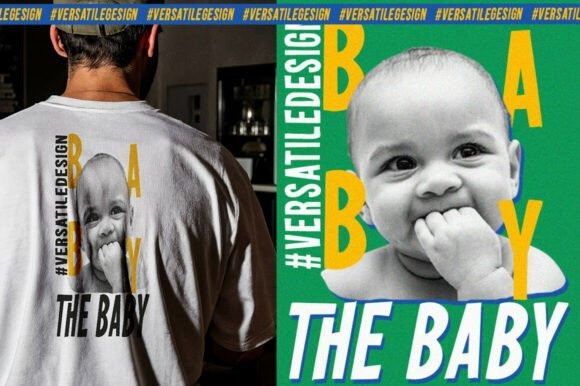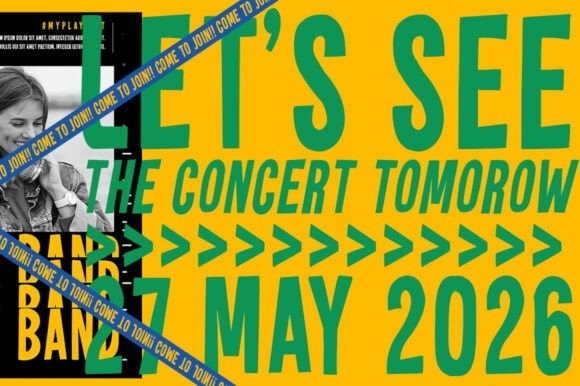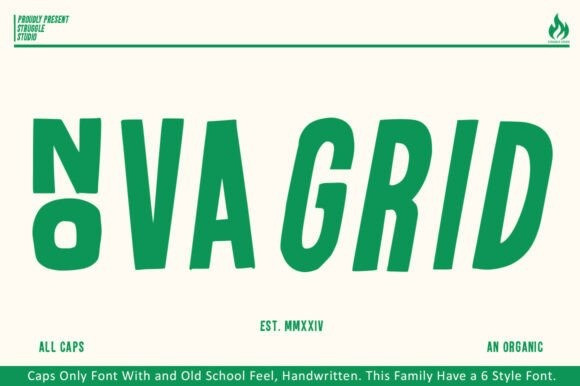
Nova Grid Font Family
Nova Grid Font Family is an all-caps typeface with a bold yet organic handwritten feel. Inspired by an old-school touch and crafted with natural imperfections, it delivers an energetic and authentic character. The slightly irregular letterforms make Nova Grid feel more alive compared to standard sans-serif fonts. This font family comes with 6 unique styles, offering great versatility for various design projects. Perfect for branding, posters, packaging, apparel, editorial typography, or any creative work that needs a strong handmade personality.
With its balance of strength and warmth, Nova Grid is the ideal choice for designers who want to bring character, energy, and a human touch to their visuals.